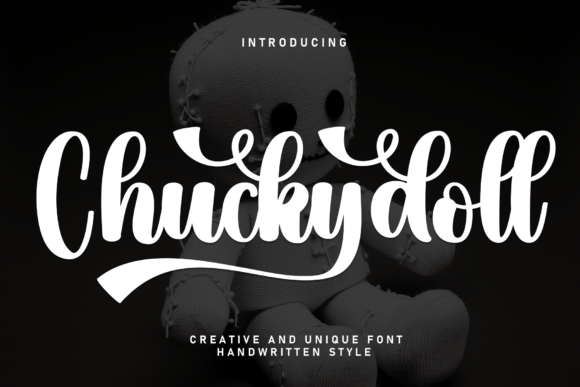
Introducing Chuckydoll Font, the enchanting script font that's sure to make your designs dance with joy! Crafted with love and precision by andikastudio, Chuckydoll embraces the essence of timeless elegance and modern charm.
With its distinctively beautiful touch, each letter in the Chuckydoll family carries a captivating personality, adding a touch of magic to your creations. Whether you're conjuring eye-catching logos, crafting unforgettable branding, or capturing the essence of life's moments in handwritten quotes, Chuckydoll is your perfect partner in creativity.
As a Best Font for Web Design 2015, Chuckydoll's allure extends far beyond the digital realm. From the vibrant screens of your website to the printed pages of your marketing materials, Chuckydoll captivates audiences with its enchanting presence.
Step into a world where your designs take on a captivating aura, where every word dances with grace and every message resonates with heartfelt emotion. Chuckydoll, the enchanting script font, awaits your touch to unleash a symphony of visual delight. Dive into the world of Chuckydoll today and let your creativity soar to new heights!